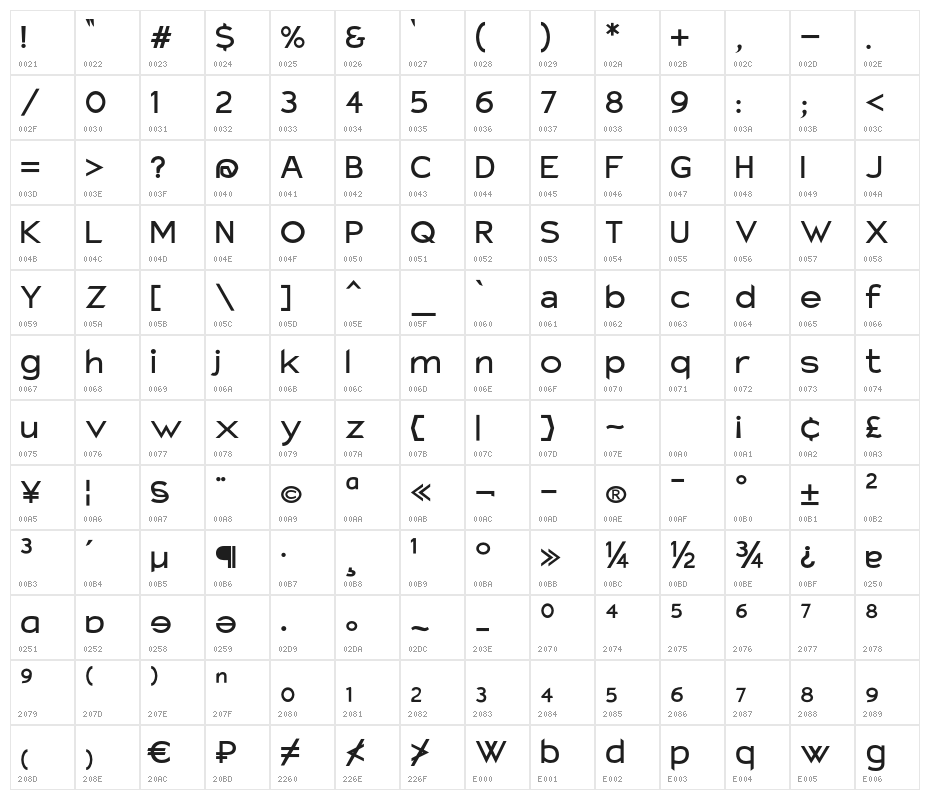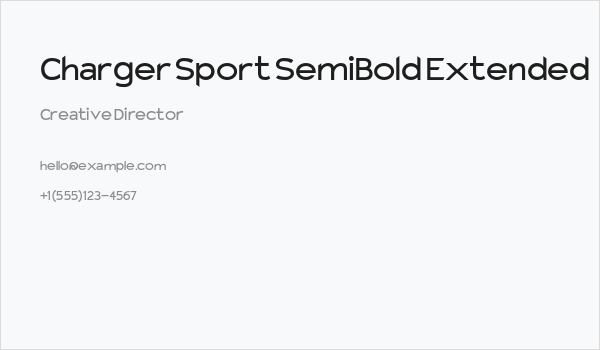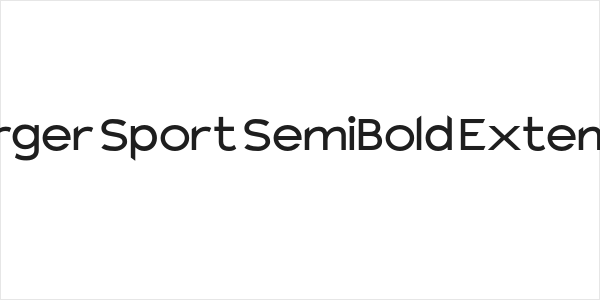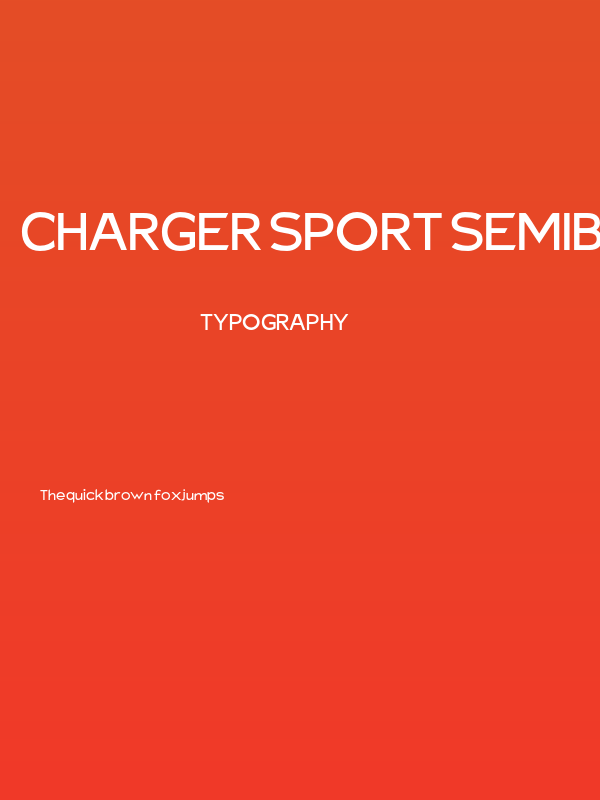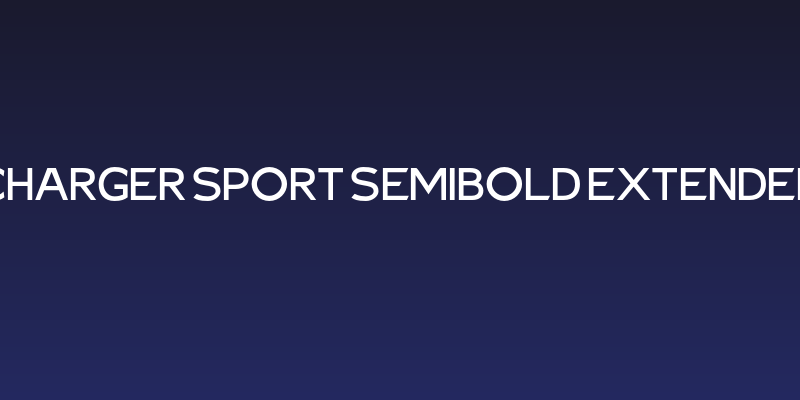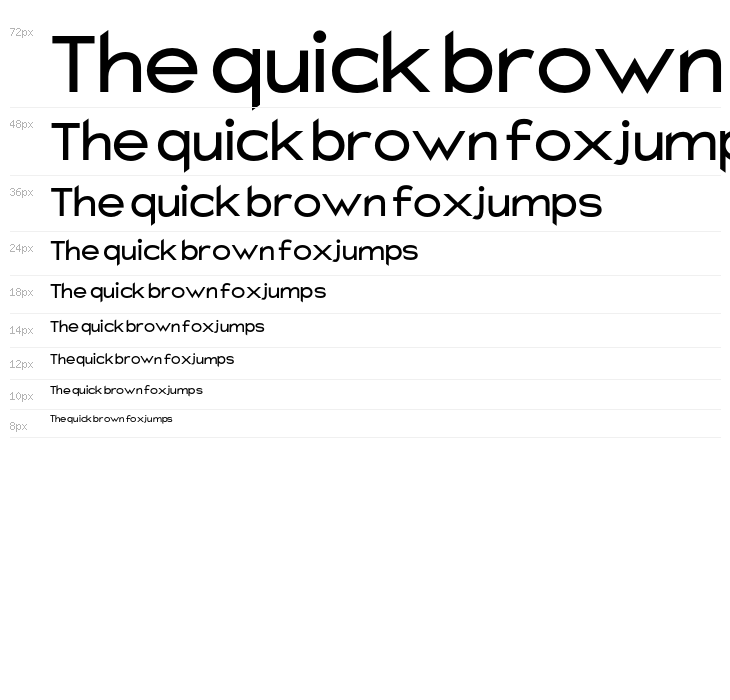
Charger Sport SemiBold Extended Font
Charger Sport SemiBold Extended Description
This typeface features a modern, sleek design with clean lines and a geometric structure. The characters are well-balanced, offering a uniform appearance that is both professional and approachable. The uppercase letters are bold and commanding, while the lowercase letters maintain a friendly and accessible tone. The numerals are clear and easy to read, making them suitable for various applications. Special characters are distinct and well-integrated into the overall design, enhancing the font's versatility. The extended width provides a spacious feel, making it ideal for headlines and display purposes.
| Proposed Projects | Ideal for branding, advertising, and editorial design projects that require a modern and bold aesthetic. |